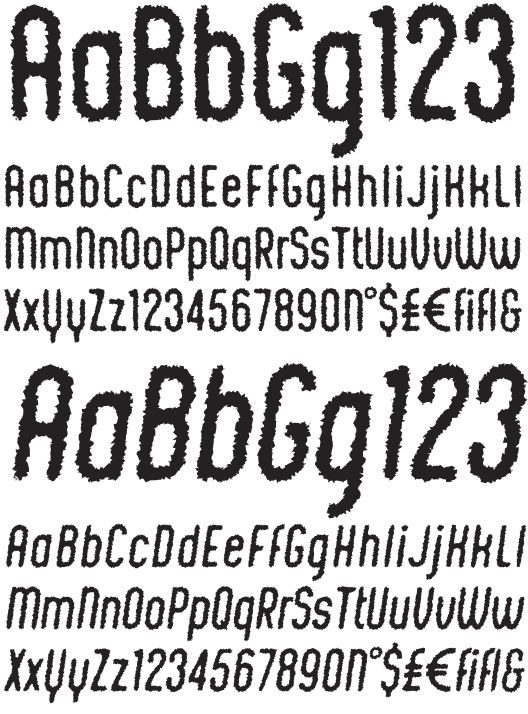
Chic Chalk Family Pack (2 fonts)
Kustomtype Fonts are designed for logotype, packaging, posters, T-shirts, signage & design projects needing a retro & vintage feel!